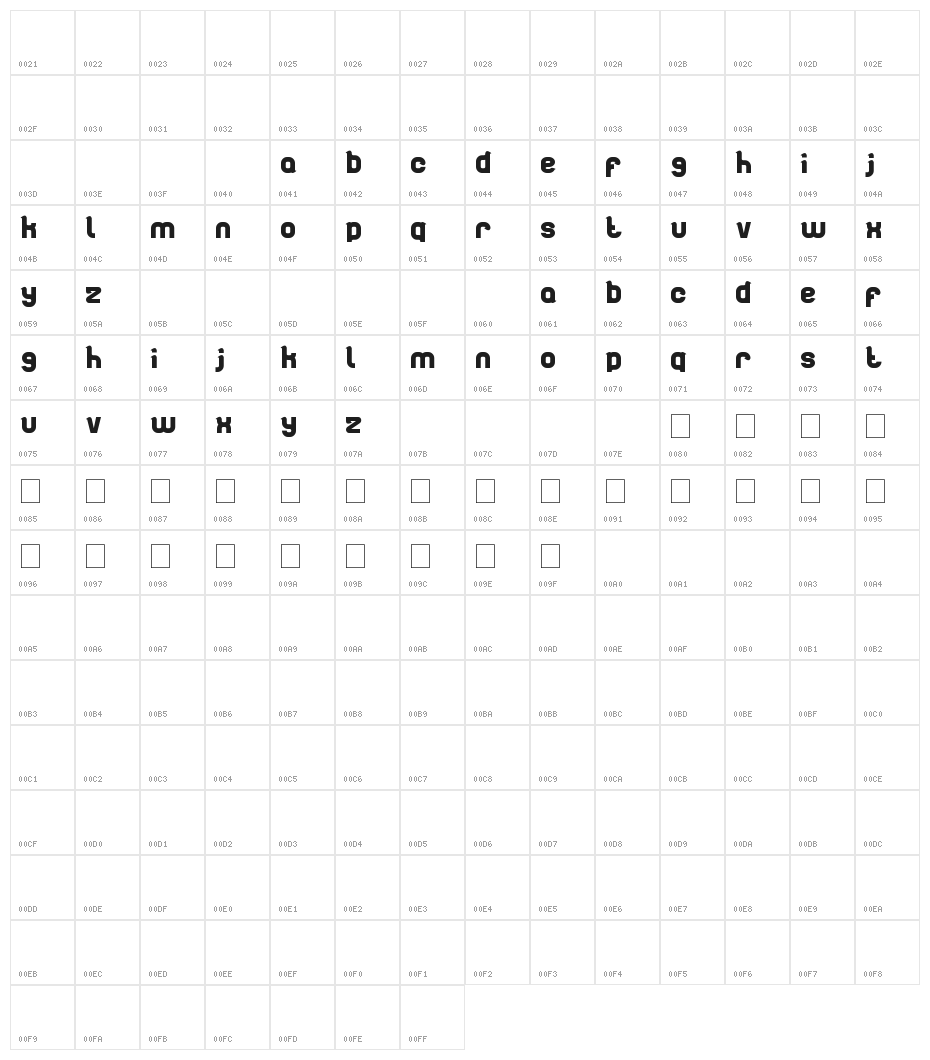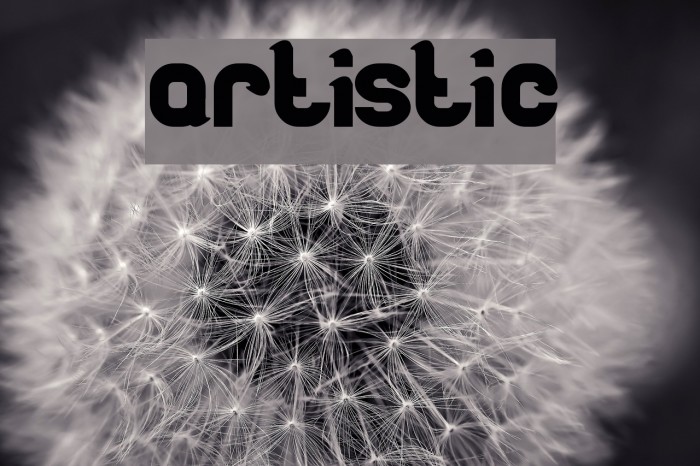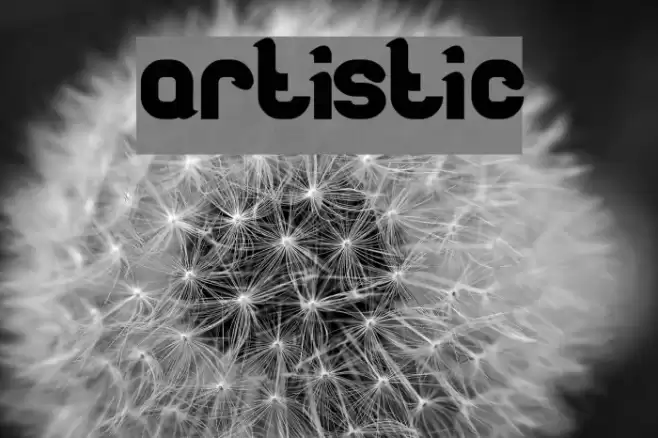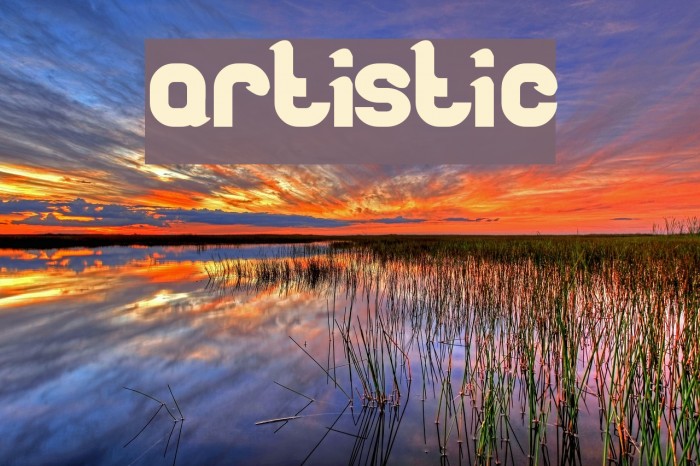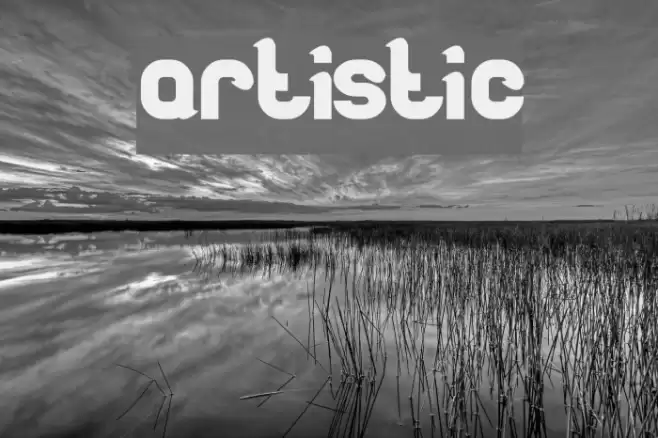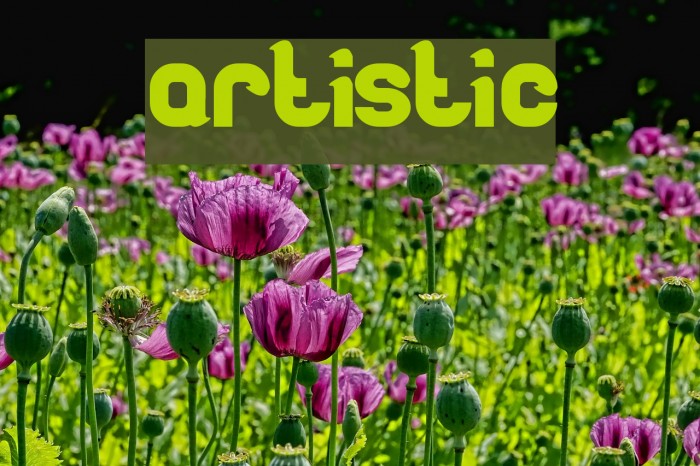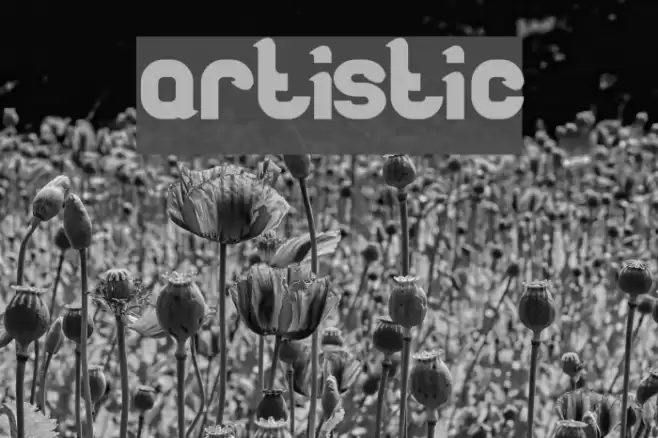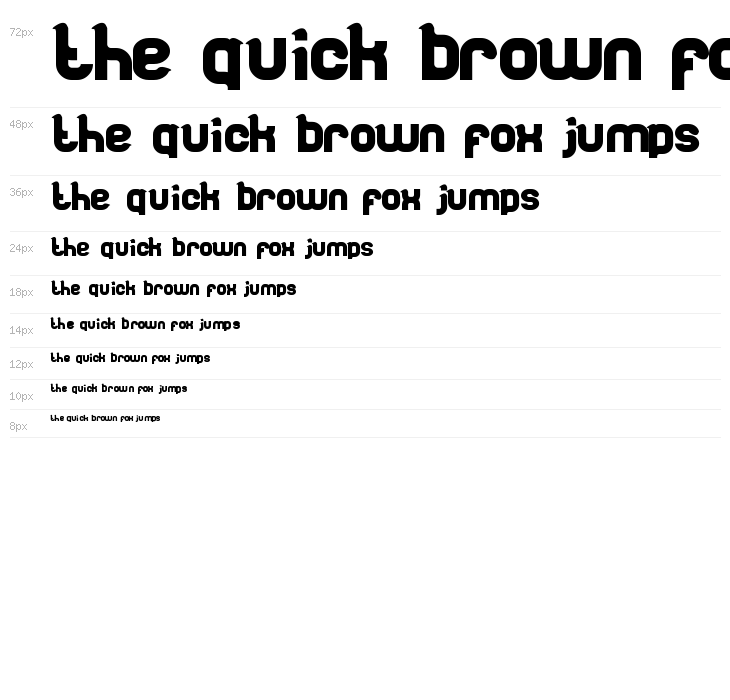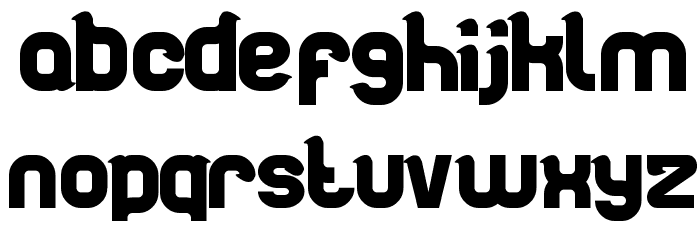
artistic Font
artistic Description
This font features a bold and playful design with a unique, artistic flair. The characters are rounded with thick strokes, creating a strong visual impact. Each letter has a distinct personality, with some incorporating unexpected curves and angles that add to the font's charm. The style is reminiscent of retro and vintage aesthetics, yet it maintains a modern appeal. The uniformity in stroke width gives it a cohesive look, while the creative letterforms make it stand out. This font is ideal for projects that require a touch of creativity and boldness.
| Overall Style | Retro, Modern |
| Proposed Projects | Perfect for branding, posters, headlines, and any creative project that needs a bold statement. |